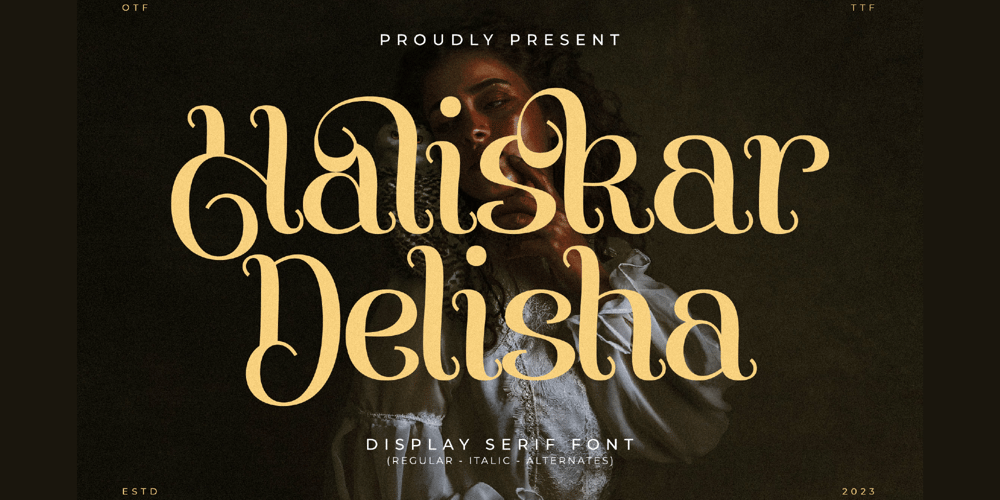
Haliskar Delisha Font Family was designed by Heru Utama Putra and published by Letterena Studios. Haliskar Delisha contains 2 styles and family package options. Proudly present Haliskar Delisha Typeface A serif modern and classic typeface that has its own unique style & modern look.This typeface is perfect for an elegant & luxury logo, book or movie title design, fashion brand, magazine, clothes, lettering, quotes, and so much more.